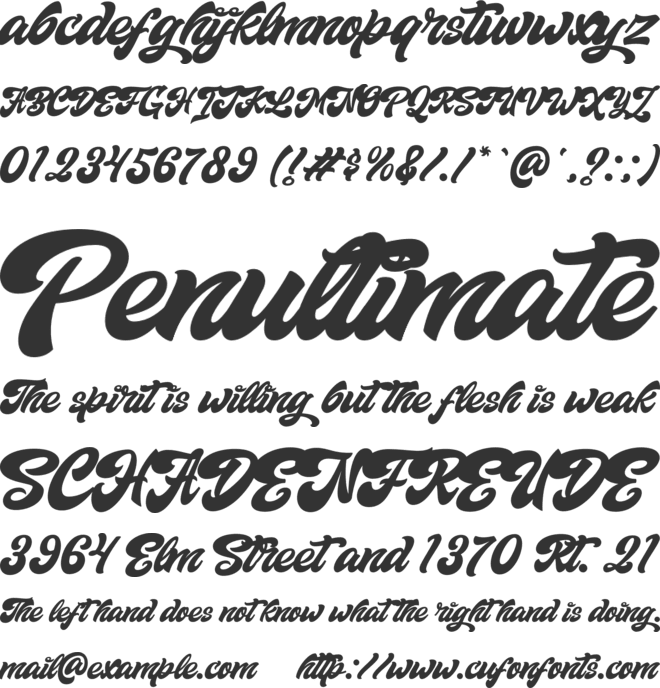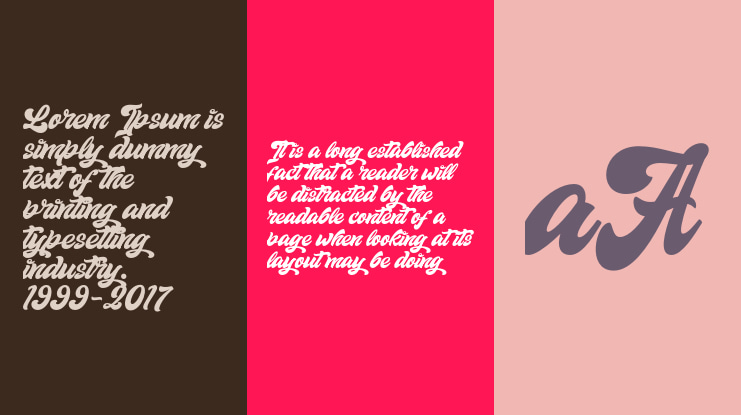
Relaxa Font
Relaxa is an exciting, throwback-style handwritten font that is poised to elevate your designs. Incorporate it into your nostalgic posters, stickers, clothing, or social media updates, and you'll undoubtedly captivate your viewers.